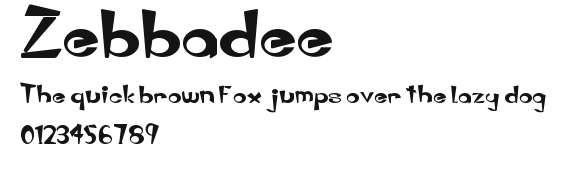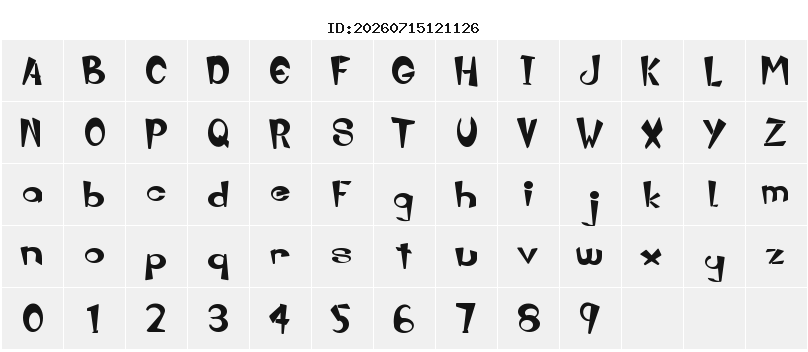
• Font Name: Zebbadee
• Designer: Chris Brown
• Manufacturer: Chris Brown (visual design)
• Description: ZEBBADEE was named after the springed character Mister Zebbadee from the English children's TV show, The Magic Roundabout. (go figure?)